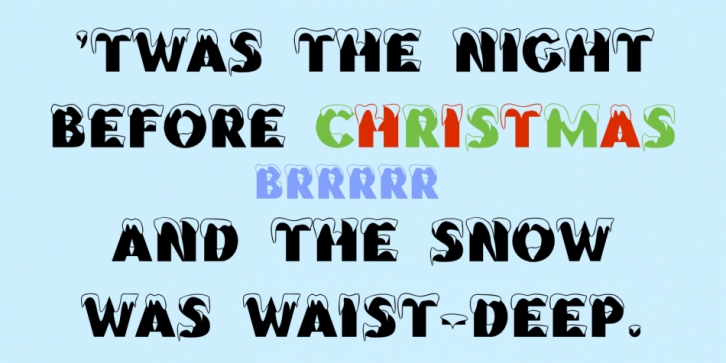
Brrrrr is a novelty font published by Ingrimayne Type.
Brrrrr is supposed to represent snow-covered letters, though it could also be letters covered with frosting. The lower case letters are identical to the upper-case letters.
Buried in the font is another set of letters on Christmas tree ornaments. (They are on unicode characters in the 2400 block, circled digits and letters.)